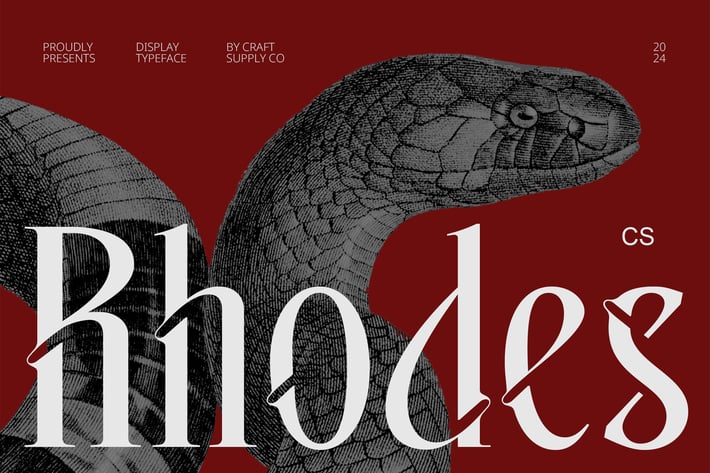
Rhodes – Elegant Font
CS Rhodes – Elegant Serif Font
Timeless Elegance with a Luxurious Appeal
CS Rhodes is a modern serif font that captures the essence of sophistication and prestige. Featuring long, graceful serifs and fine detailing, this font offers a luxurious, high-end feel perfect for projects that demand elegance and refinement. Its classic design, combined with modern sensibilities, creates a seamless balance of tradition and contemporary style, making it ideal for branding, editorial designs, and other premium projects.
Ideal for High-End Branding and Editorial Projects
Perfect for luxury branding, upscale editorial layouts, and formal invitations, CS Rhodes brings a sense of authority and elegance to any design. Its elongated serifs and meticulous details provide a distinguished look that elevates your work, making it an excellent choice for corporate identities, fashion magazines, and high-end marketing materials.
A Prestigious, Refined Font for the Modern Era
The sleek, elongated serifs of CS Rhodes deliver a sophisticated aesthetic while maintaining clarity and readability. Whether for a premium product launch or an exclusive event, this font adds an air of refinement that commands attention. Its elegant structure ensures it stands out without losing its understated luxury.